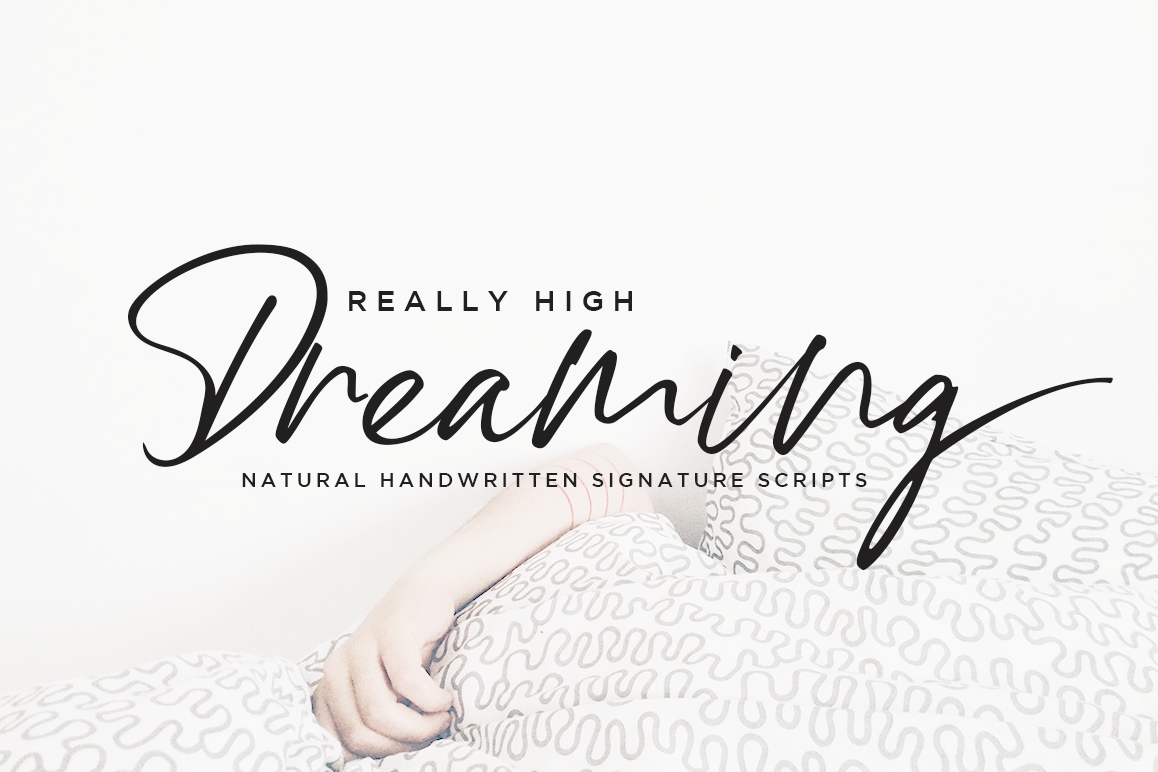
High Dreaming // Natural Handwritten
High Dreaming is a stylish modern and natural handwritten script font with casual chic flair. It is perfect for branding, wedding invites and cards, and maybe for red wine label.High Dreaming includes full set of gorgeous uppercase and lowercase letters, numerals, a large range of punctuation and ligatures. All lowercase letters of High Dreaming Regular include ending swashes, giving realistic hand-lettered style. What you get?